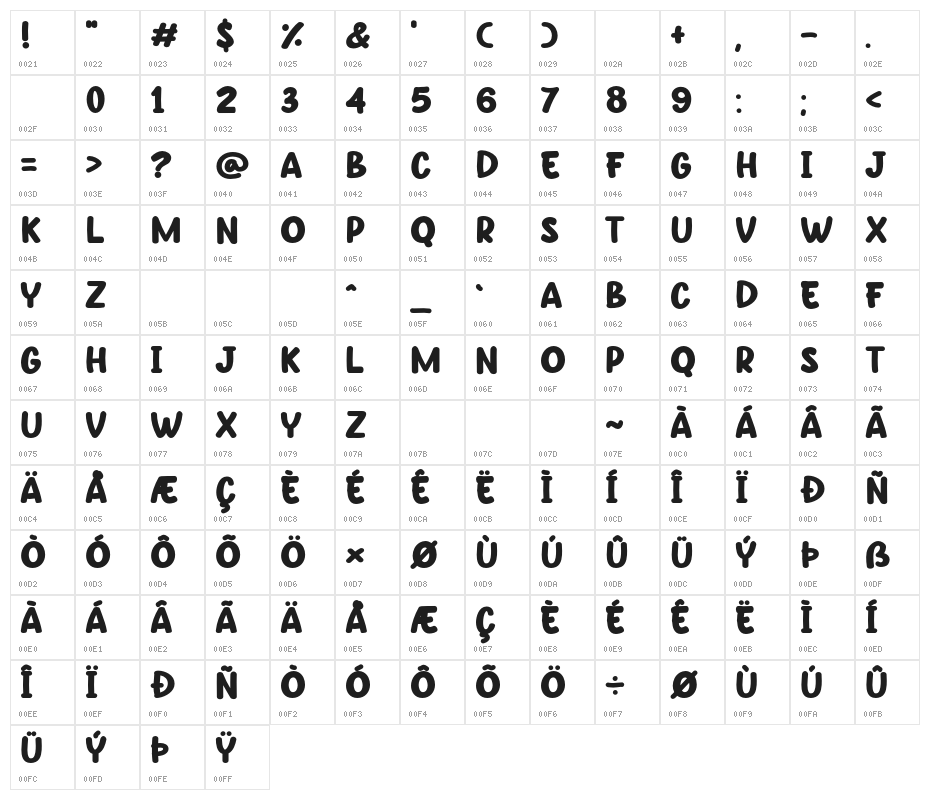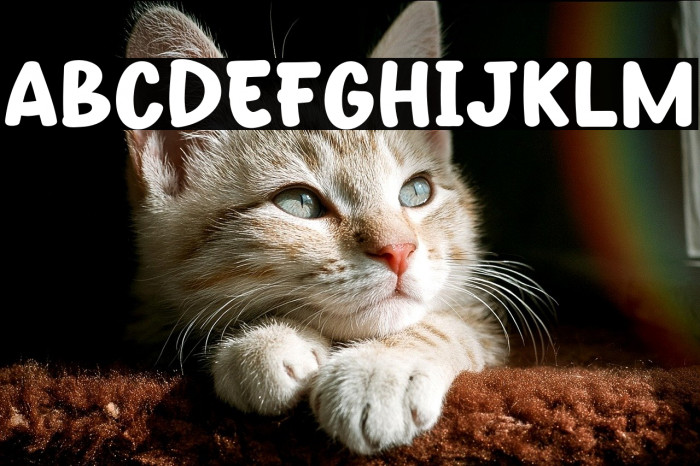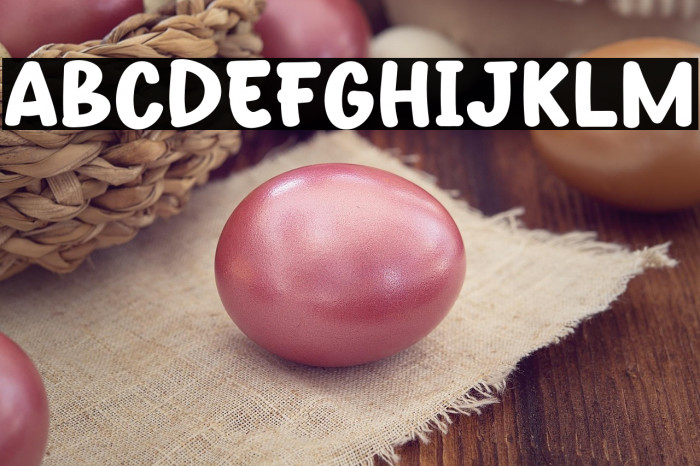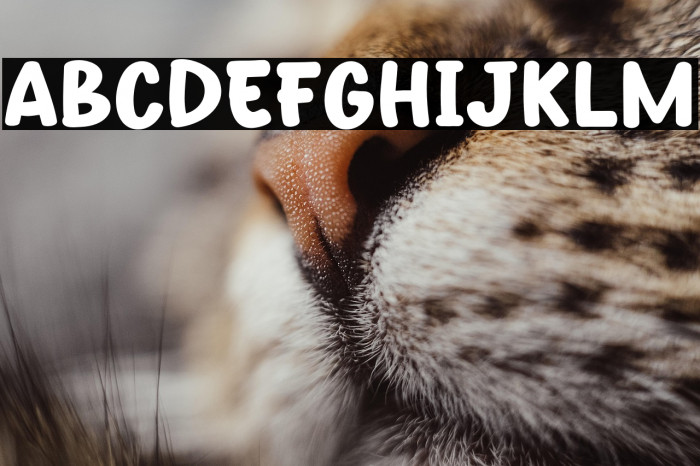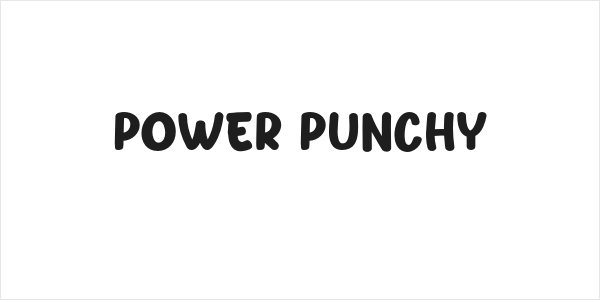
Power Punchy Font
Power Punchy Description
This font is bold and playful, characterized by its thick, rounded strokes and a slightly irregular, hand-drawn appearance. The letters are well-spaced, providing a clear and legible look, while maintaining a fun and energetic vibe. The uppercase and lowercase letters share a consistent style, with rounded edges and a slightly inflated appearance, giving them a friendly and approachable feel. The numerals and special characters follow the same design principles, ensuring uniformity across all characters. This font is ideal for projects that require a lively and informal touch, such as children's books, playful branding, or casual invitations.
| Overall Style | Playful, Energetic, Informal |
| Proposed Projects | Ideal for children's books, playful branding, casual invitations, and fun posters. |